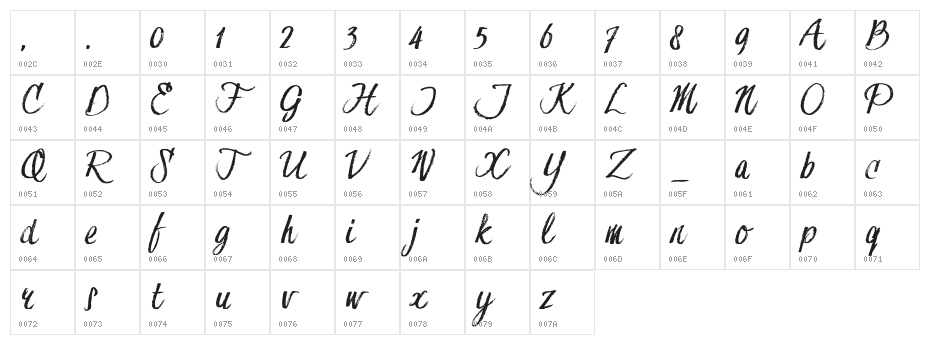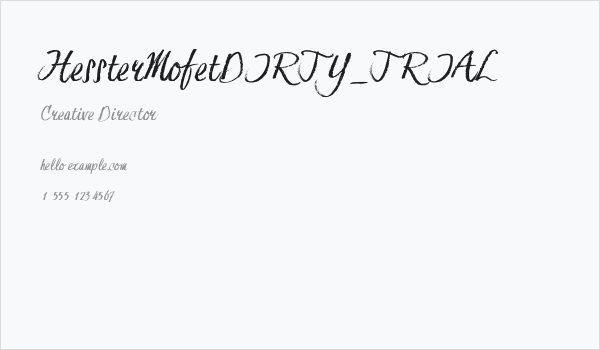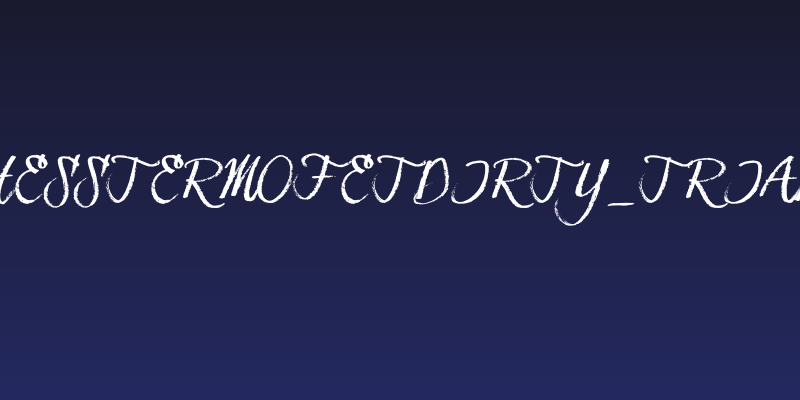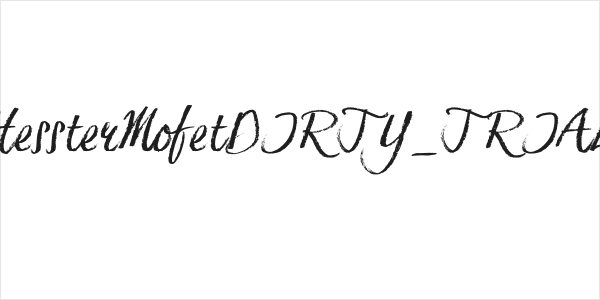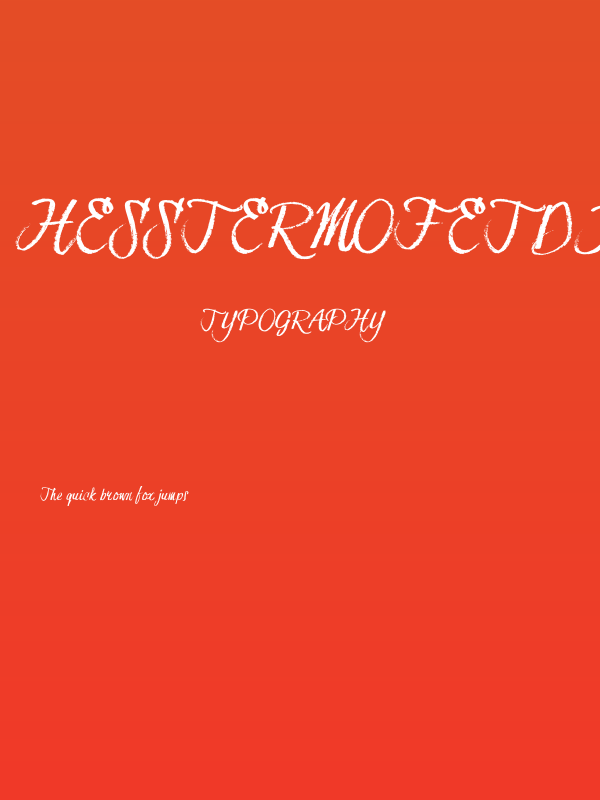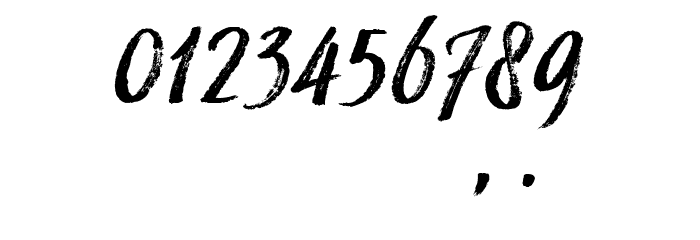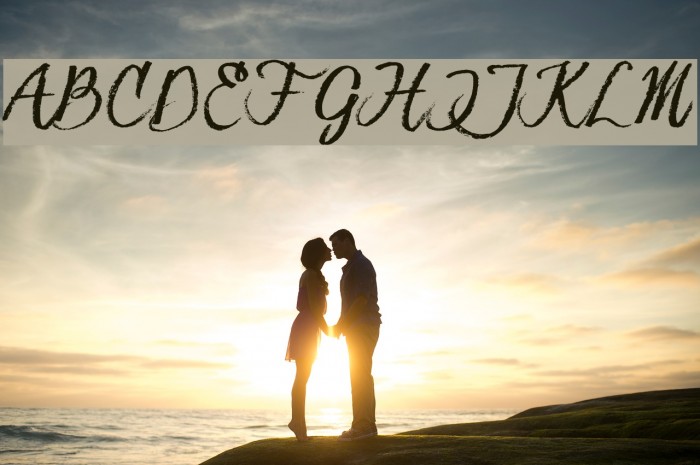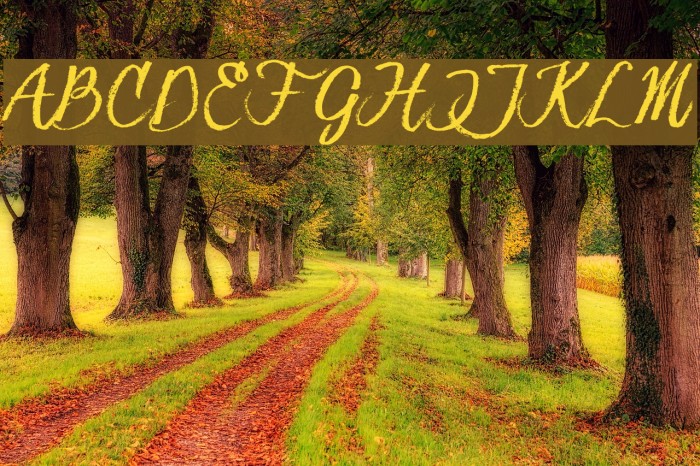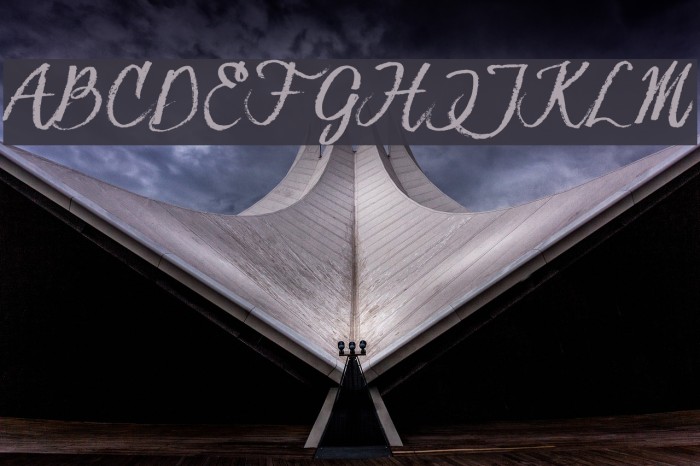
HessterMofetDIRTY_TRIAL Font
HessterMofetDIRTY_TRIAL Description
This font exudes a bold and expressive style, characterized by its brush-like strokes that give it a dynamic and textured appearance. The letters are crafted with a sense of movement, as if painted with a calligraphic brush, creating an energetic and artistic feel. The uppercase and lowercase letters maintain a consistent flow, while the numbers and special characters complement the overall design. The font's rough edges and varying stroke widths add to its handmade, organic look, making it suitable for projects that require a personal and creative touch.
| Proposed Projects | Ideal for artistic projects, branding, posters, and invitations that require a personal and creative touch. |